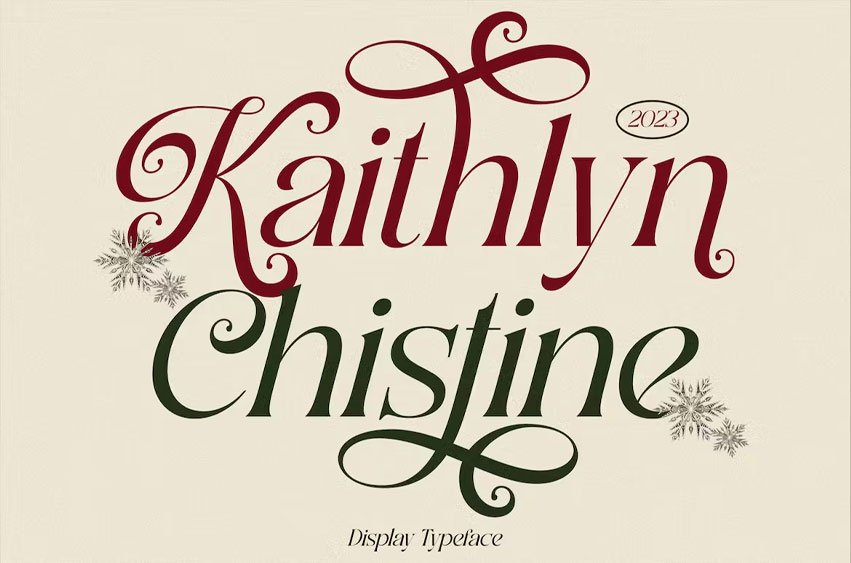
Kaithlyn Chistine Font will perfect for many project: book, magazines, logo, branding, photography, quotes, blog header, poster, advertisements, etc.
Kaithlyn Chistine Font Preview